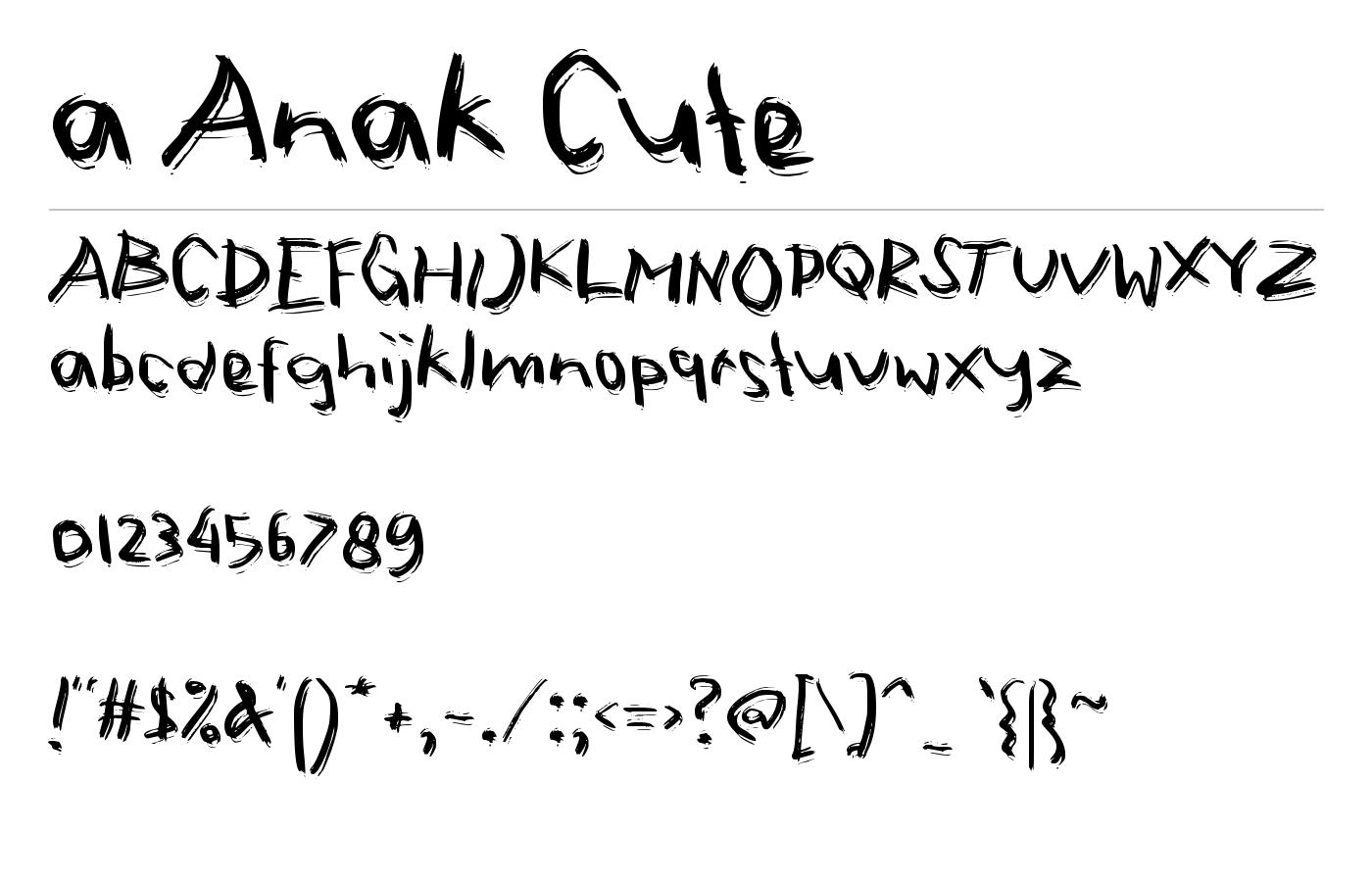
a Anak Cute is a playful, hand-drawn sans serif font with a lively, brushstroke texture that gives it a casual and energetic feel. Its irregular, slightly rough edges and friendly letterforms make it great for creative projects, children's designs, or any context that benefits from a fun and approachable vibe. This font works well for headlines, posters, and branding where a unique, informal personality is desired.
a Anak Cute Font
About a Anak Cute Font